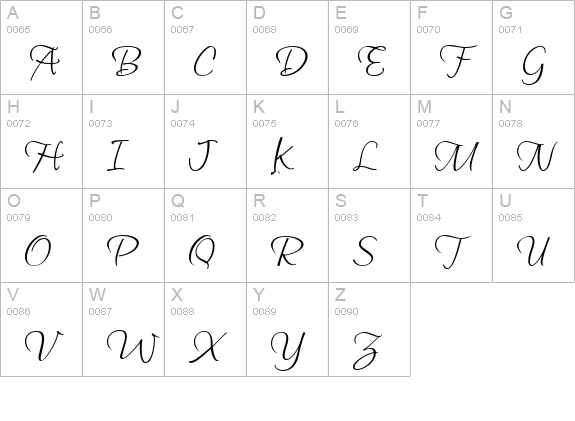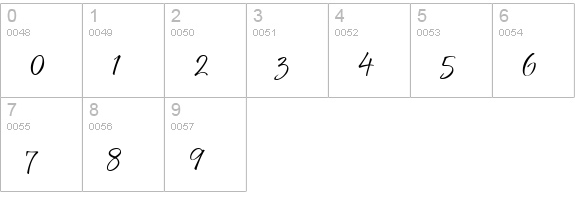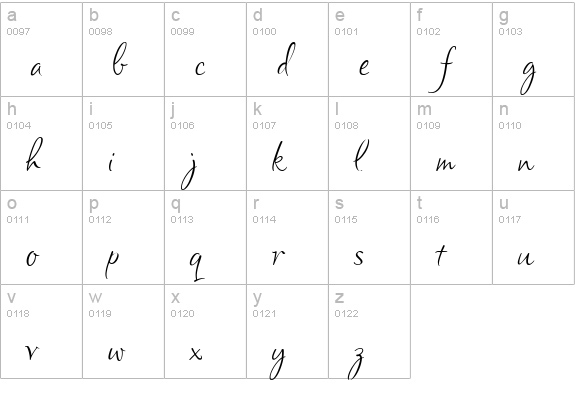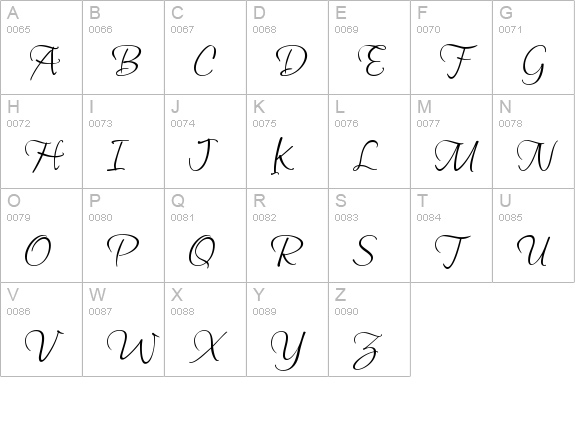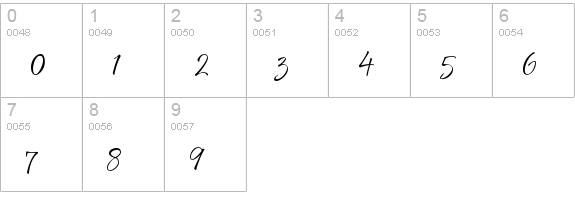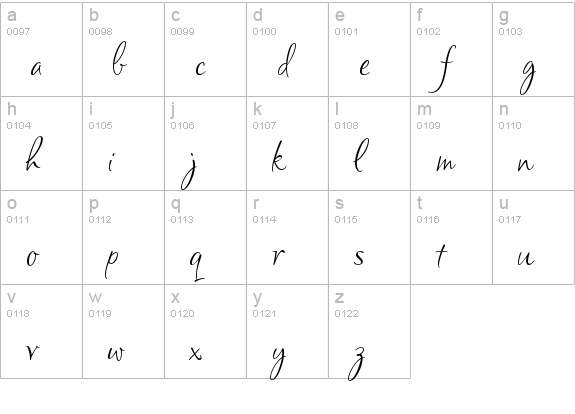
Clarissa Font Details
Introducing Clarissa font, a stunning typeface that effortlessly combines elegance and modernity. With its sleek lines and sophisticated curves, Clarissa is perfect for adding a touch of refinement to your design projects. Whether you're working on wedding invitations, branding materials, or editorial layouts, this versatile font is sure to make a lasting impression. What sets Clarissa font apart is not just its beauty, but also its accessibility. This exquisite typeface is available for free download at FontsMarket.com, making it easy for designers of all levels to incorporate it into their work. Don't miss out on the opportunity to enhance your creations with the timeless charm of Clarissa font. Download it today and let your creativity shine!